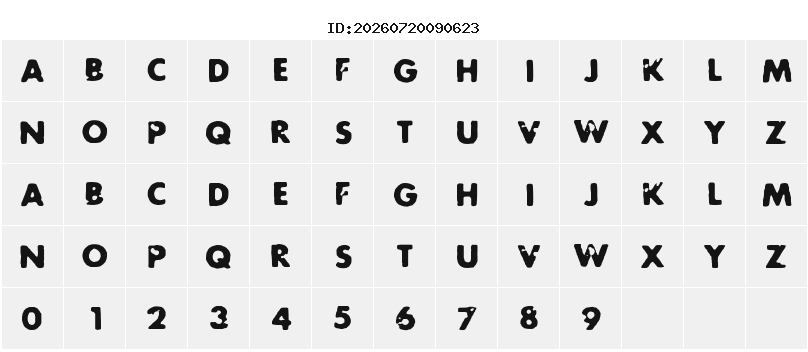
• Font Name: Future Rot
• Full Font Name: Future Rot
About Future Rot.ttf
Future Rot.ttf is a modern, elegant sans-serif font designed for ultimate readability and visual harmony. Perfect for branding, headlines, web design, and print materials.